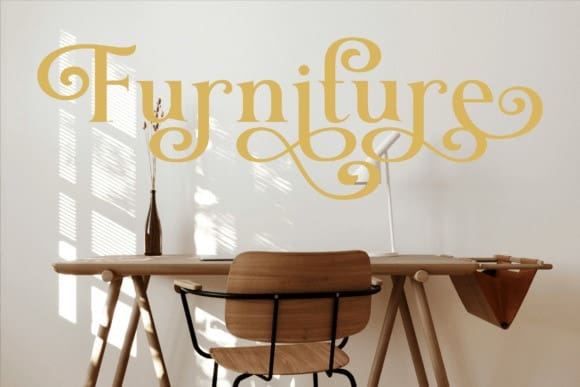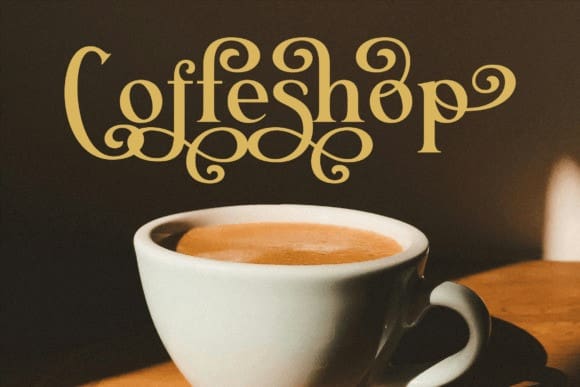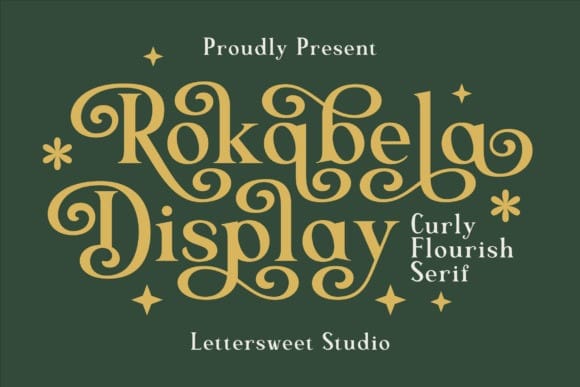
Rokabela Font
Rokabela Font is a playful and elegant display font with curly, flourish serif elements. Its intricate swirls and bold yet refined letterforms make it perfect for creative projects that demand a touch of charm and sophistication. Ideal for headlines, logos, packaging, and event invitations, this font evokes a sense of joy and whimsy while maintaining a polished aesthetic. Rokabela Display brings personality and style to any design!